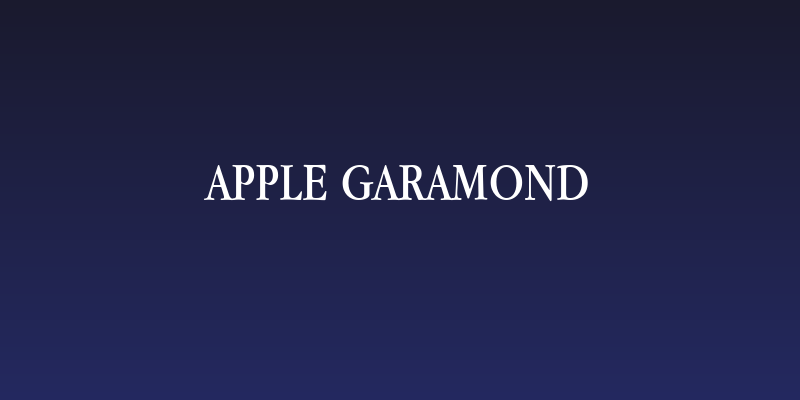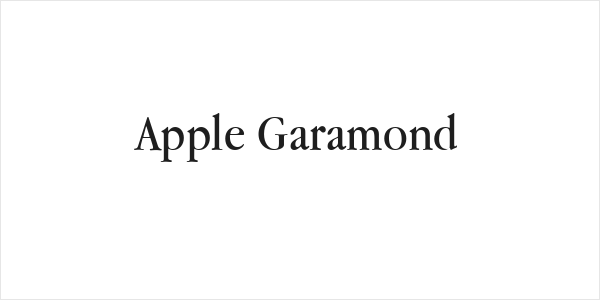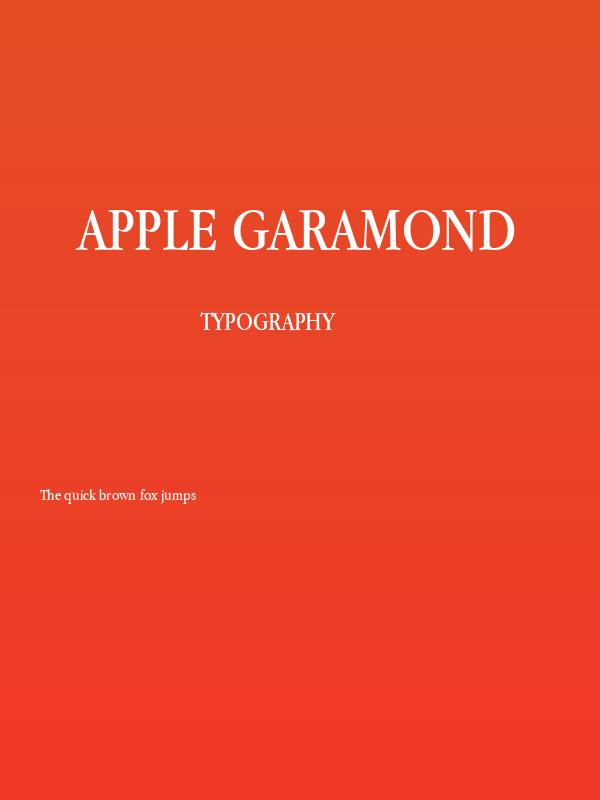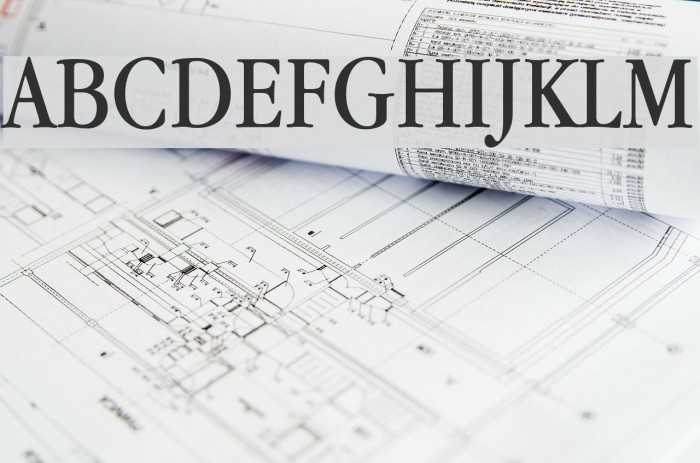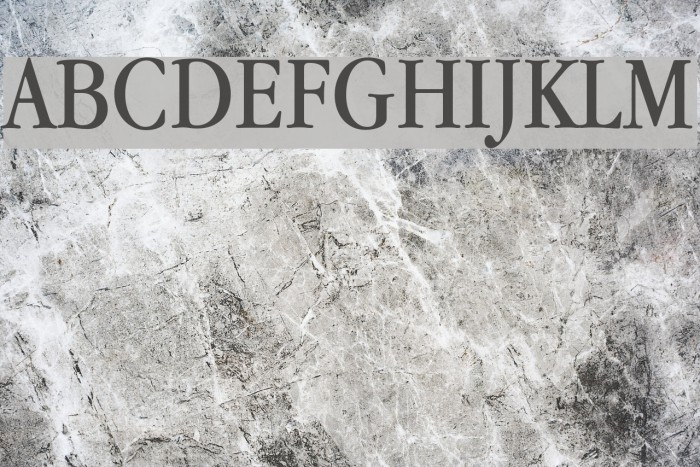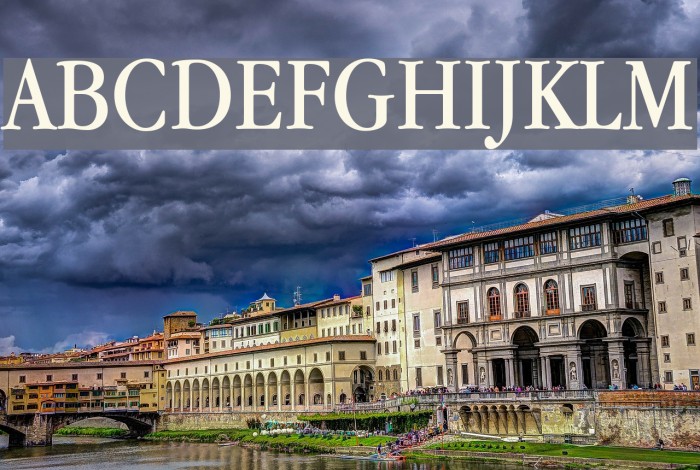
Apple Garamond Font
Apple Garamond Description
This font features a classic serif style with elegant, refined strokes and a balanced proportion. The uppercase letters are stately and well-defined, while the lowercase letters maintain a harmonious flow with subtle curves. The numerals are clear and distinct, complementing the overall sophisticated appearance. Special characters are crafted with precision, adding to the font's versatility. The design exudes a timeless quality, making it suitable for a variety of applications where a touch of elegance and tradition is desired.
| Overall Style | Classic |
| Use Case | Headlines, Body text, Logos |
| Proposed Projects | Ideal for editorial design, book covers, formal invitations, and branding projects that require a touch of sophistication. |